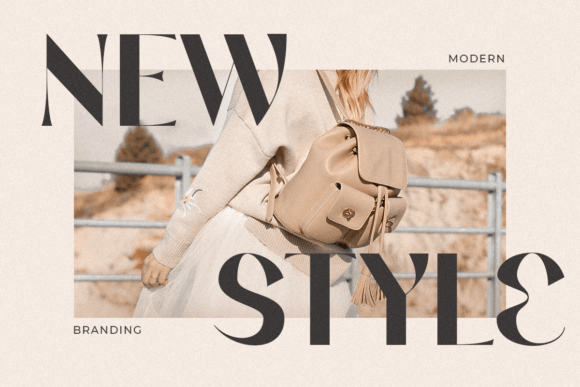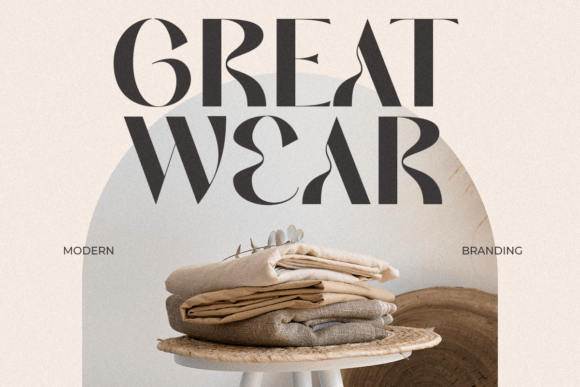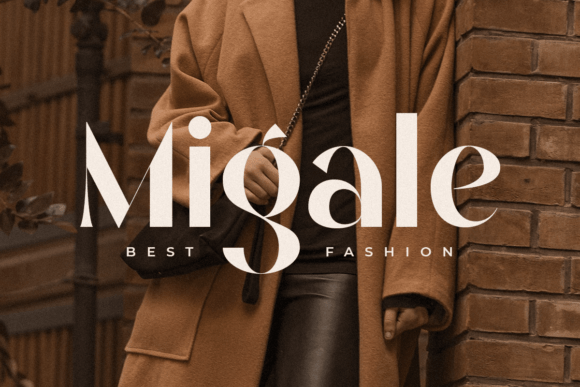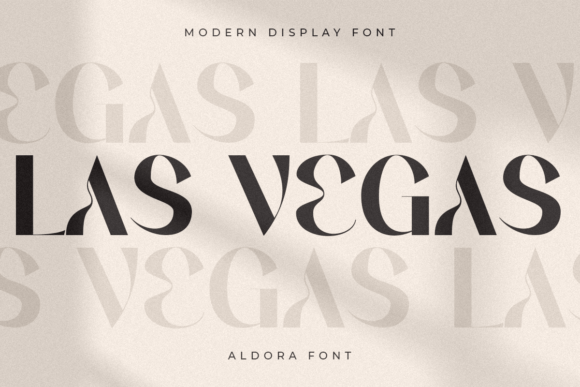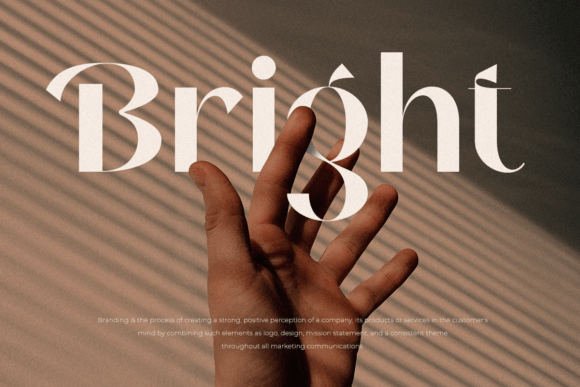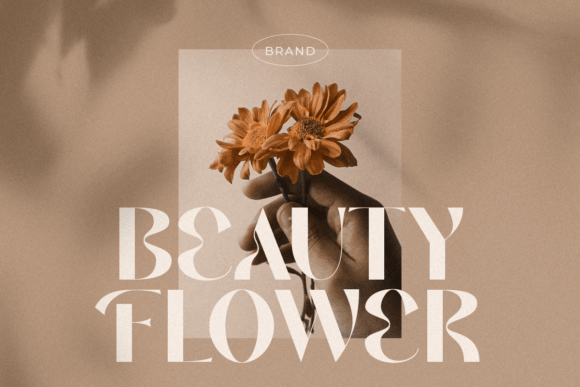
Aldora Font: Elevate Your Designs with a Bold and Assertive Serif Font
In the world of typography, a font can make or break a design. When it comes to creating visually stunning and effective designs, the right font choice is crucial. Aldora Font is a bold and assertive serif font that can elevate any creation, regardless of the topic or industry. In this article, we’ll dive into the features and benefits of Aldora Font, and explore how it can become an incredible asset to your font library.
The Power of Serif Fonts
Serif fonts have been a staple in typography for centuries, and for good reason. The small lines or flourishes at the end of each letter give serif fonts a classic and sophisticated look, making them perfect for designs that require a touch of elegance. Aldora Font takes the traditional serif font to the next level with its bold and assertive style, making it perfect for headlines, titles, and emphasis text.
What Makes Aldora Font Stand Out
Aldora Font boasts a range of features that make it an exceptional addition to any font library. Here are just a few reasons why Aldora Font stands out:
- Bold and Assertive: Aldora Font is designed to make a statement. Its bold and assertive style ensures that your text will grab attention and leave a lasting impression.
- Versatile: Whether you’re designing a logo, brochure, or website, Aldora Font can adapt to any style or theme. Its versatility makes it an excellent choice for a wide range of design projects.
- High Readability: Despite its bold style, Aldora Font remains highly readable, even at smaller font sizes. This makes it perfect for body text, captions, and other applications where legibility is crucial.
- Unique Character: Aldora Font has a distinct character that sets it apart from other serif fonts. Its unique features make it an excellent choice for designers looking to add a touch of personality to their designs.
Aldora Font offers a range of benefits for designers and crafters, including:
- Time-Saving: With Aldora Font, you can create stunning designs in a fraction of the time. Its bold and assertive style eliminates the need for extensive design tweaks, allowing you to focus on other aspects of your project.
- Consistency: Aldora Font ensures consistency across your designs, creating a cohesive look and feel that reinforces your brand identity.
- Creativity Boost: Aldora Font’s unique character and versatility can inspire creativity and help you explore new design ideas.
How to Use Aldora Font Effectively
To get the most out of Aldora Font, here are some tips for using it effectively:
- Headlines and Titles: Use Aldora Font for headlines and titles to grab attention and create a lasting impression.
- Emphasis Text: Use Aldora Font to draw attention to specific text, such as calls-to-action or key statistics.
- Branding: Incorporate Aldora Font into your brand identity to create a bold and assertive visual presence.
Aldora Font is a bold and assertive serif font that can elevate any design. Its versatility, readability, and unique character make it an excellent addition to any font library. Whether you’re a designer, crafter, or simply looking to enhance your typography skills, Aldora Font is an incredible asset that can help you create stunning designs. With its wide range of applications and benefits, Aldora Font is sure to become a staple in your design toolkit.